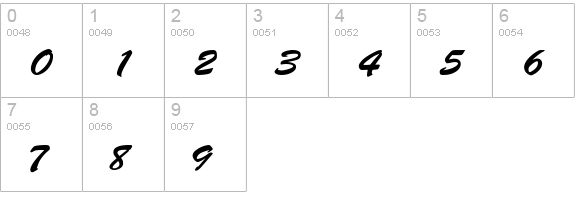
LetterMotion Font Details
Introducing LetterMotion, a captivating and dynamic font that will bring life and motion to your designs. With its bold and flowing letterforms, LetterMotion is the perfect choice for projects that seek to make a bold statement. This font exudes a sense of energy and movement, with each letter appearing as if it is in constant motion. The curves and loops of the characters create a visually stunning effect that will captivate your audience. LetterMotion is not only visually striking, but it also offers versatility in its usage. Whether you're designing a poster, a logo, a website, or any other creative project, this font will effortlessly adapt to your needs. One of the most remarkable aspects of LetterMotion is that it is available for free. Yes, you read that right! This unique and eye-catching font can be yours without spending a dime. Simply head over to FontsMarket.com and download LetterMotion to add this incredible font to your collection. With its freely available download, LetterMotion offers an opportunity for designers, creatives, and enthusiasts alike to access a high-quality font without breaking the bank. It's a font that truly embodies the spirit of accessibility and inclusivity. So why wait? Unleash the power of motion in your designs with LetterMotion. Download it for free at FontsMarket.com and let your creativity take flight.